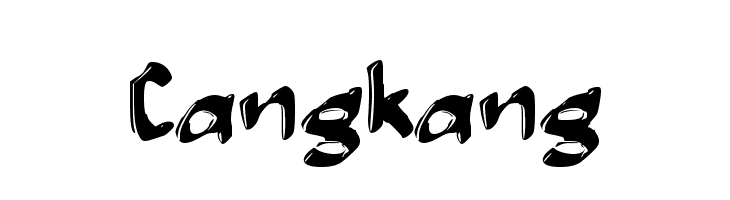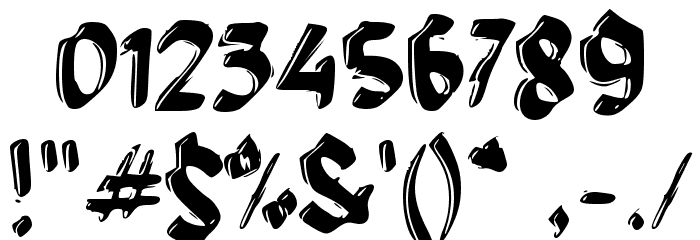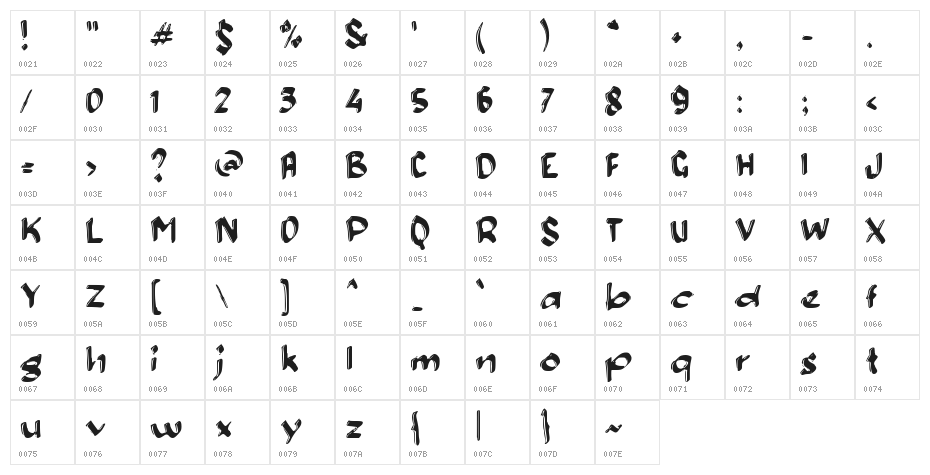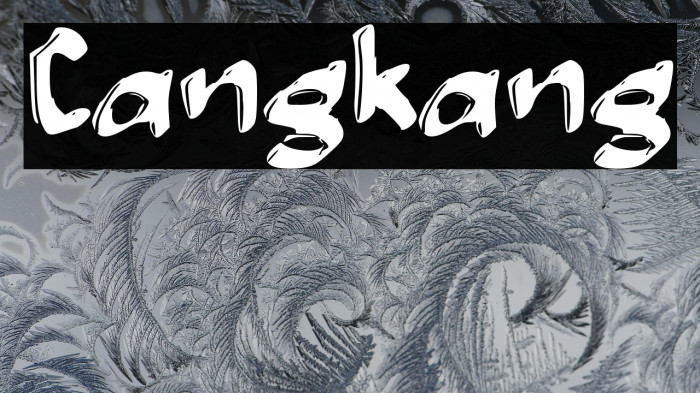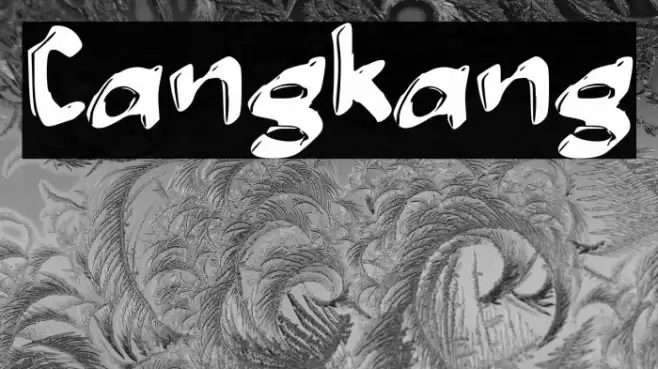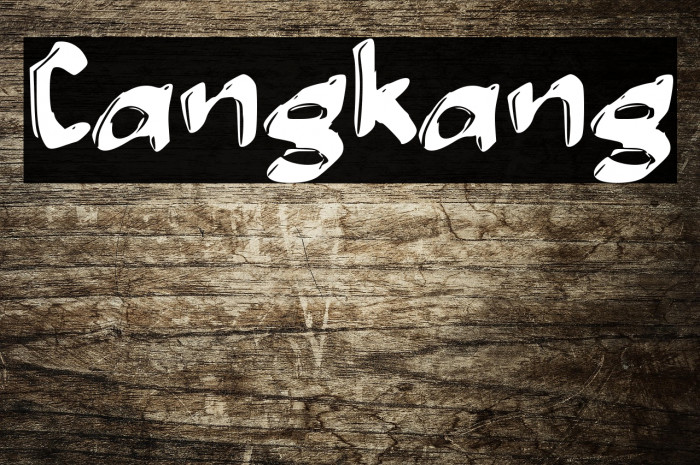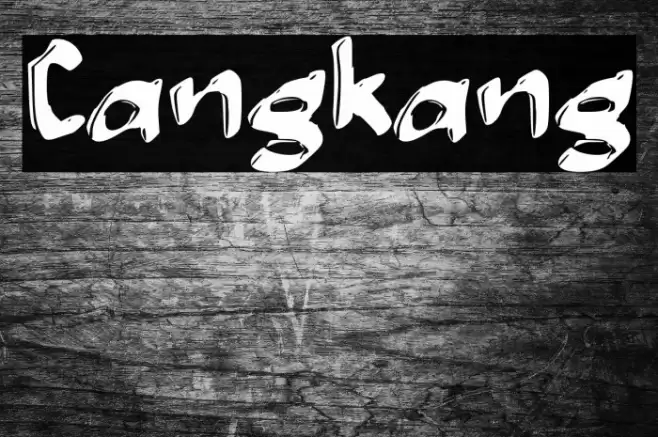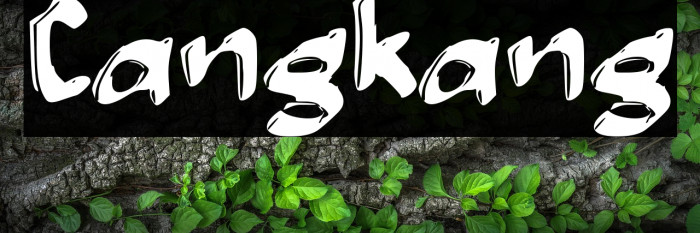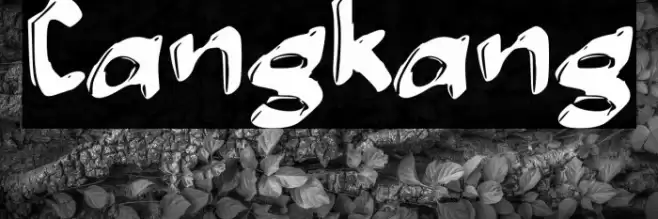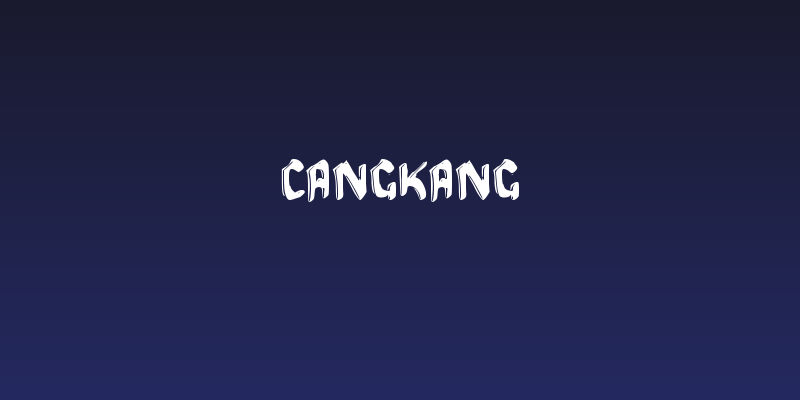
Cangkang Font
Cangkang Description
This font features a bold and dynamic style with a hand-drawn appearance, characterized by thick strokes and irregular edges that give it a lively and energetic feel. The uppercase and lowercase letters maintain a consistent flow, while the numerals and special characters complement the overall design with their playful and artistic forms. The font's unique style makes it stand out, offering a creative and expressive look that is both modern and slightly retro. Its boldness and distinctive character make it suitable for projects that require a strong visual impact.